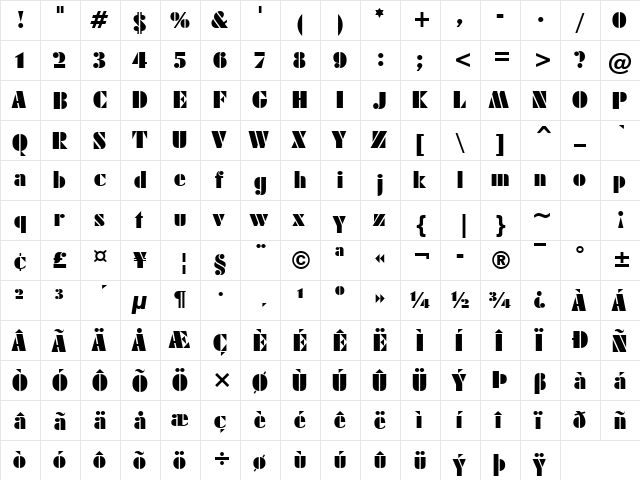
FuturaBlack Win95BT Regular
Design Context for FuturaBlack Win95BT Typeface
FuturaBlack Win95BT has a distinctly futuristic character, with geometric precision and clean angles that feel at home in technology, gaming, and sci-fi contexts.
Pro Tip: Try FuturaBlack Win95BT with generous letter-spacing in UI labels and navigation — the geometric forms benefit from room to breathe.